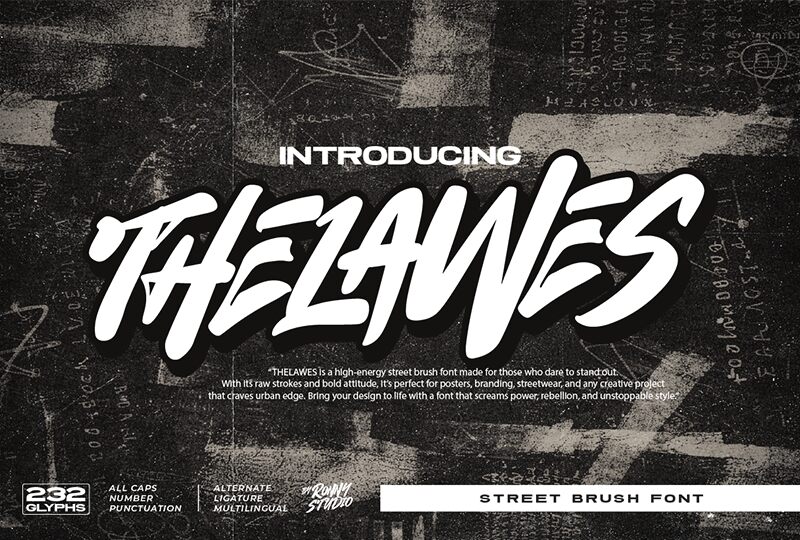
Thelawes font by Ronny Studio is a free graffiti font that captures the rebellion and energy of street art scene. Its letters are expressive, impactful, bold, and showcase uneven endings, sizes, and forms. Since graffiti art is closely associated with hip-hop culture, the font naturally borrows inspiration from it and adopts a casual, cool, and youthful style.
It is sure to grab attention, with letters being designed to take center stage and grab attention like a piece of sticker artwork. This strong presence may be useful if you want your design to be noticed and memorable.
Include this breathtaking font when working on designs for posters, album covers, t-shirts, banners, advertisements, or book covers. It also works for social media images, street signage, graffiti artwork, stickers, skateboards, and home decor. Letters come with a rough and worn texture for an authentic look, but you can make them look smoother by simply filling them with a solid color.